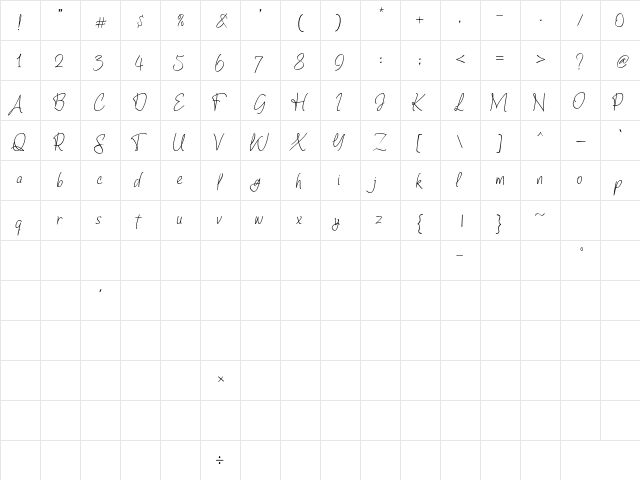
Baltigo Script Regular
| Designer | Nico Muslib |
Design Context for Baltigo Typeface
Baltigo brings a calligraphic fluidity to the page — its connecting strokes and expressive curves give it an unmistakably human quality.
Font Pairing: Combine Baltigo with a simple geometric sans for maximum contrast — the tension between flowing curves and clean structure is a classic typographic pairing.
Pro Tip: Use Baltigo for short runs of text — names, titles, or taglines. Extended body copy in script faces tires the eye quickly.